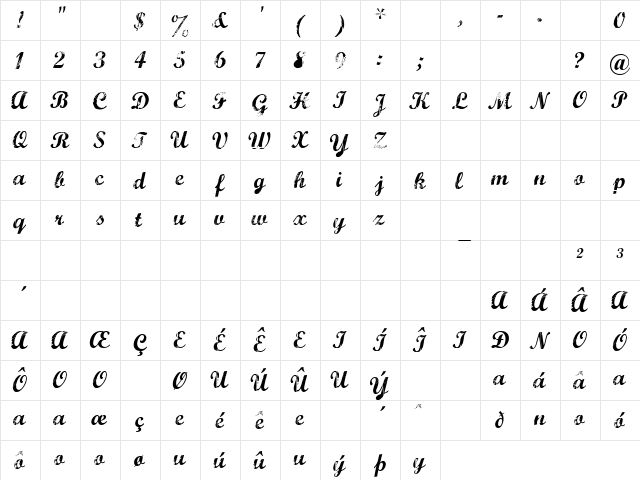
Marcelle Script Regular
| Foundry | StereoType |
Design Context for Marcelle Script Typeface
Marcelle Script brings a calligraphic fluidity to the page — its connecting strokes and expressive curves give it an unmistakably human quality.